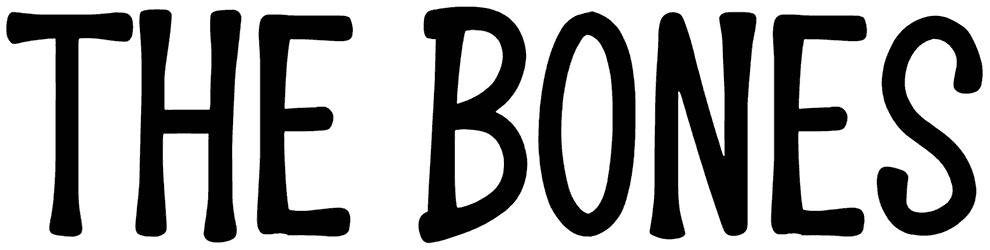
The Bones Font
Introducing our new script font, The Bones, which comes with a mysterious and playful feel that will allow you to make your design stand out from the rest. Unfortunately, this Halloween font doesn’t support lowercase letters, but it can be used in a variety of projects. It is a perfect option for product packaging, animation posters, book covers, T-shirt printing, and social media posts.